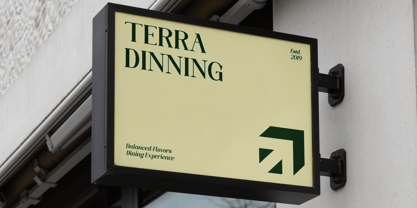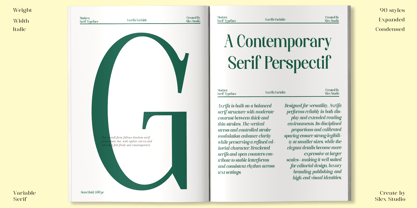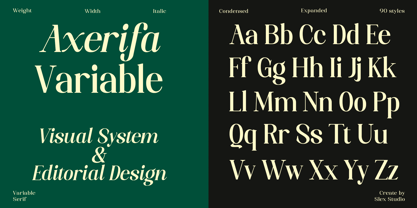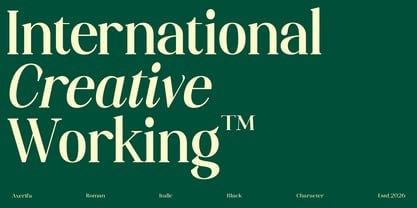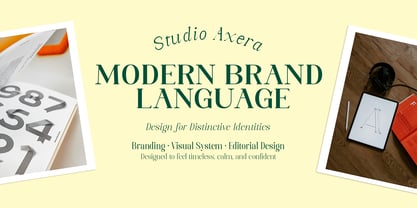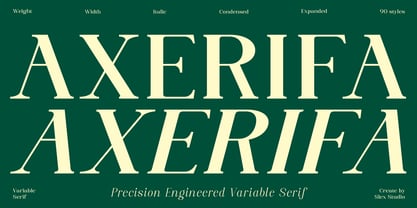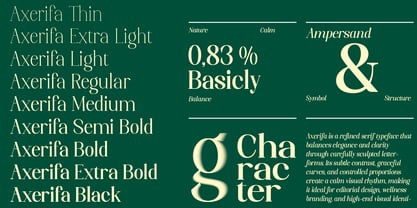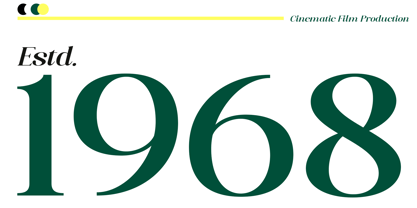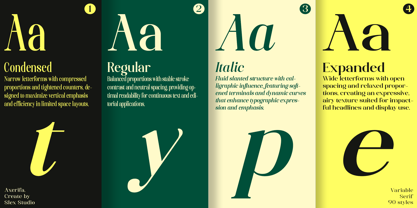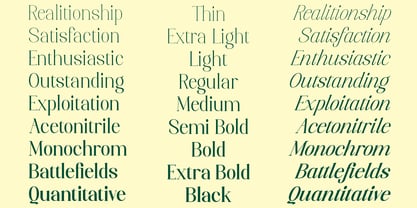
Axerifa
by Slex Studio
The Axerifa Font Family was designed by Muhammad Rayyan and published by Slex Studio. Axerifa contains 180 styles and family package options. More about this family
Axerifa is a precision-engineered variable serif designed for modern editorial and branding needs. Built on a refined classical foundation, Axerifa balances sharp structure with smooth curves, delivering strong character without sacrificing readability. This family offers extensive weight and width axes, from condensed to expanded, paired with a true italic that maintains optical harmony across all styles. Every detail—from stroke contrast to serif articulation—is carefully calibrated to perform consistently across large headlines, refined layouts, and expressive typography systems. With up to 90 styles, Axerifa gives designers full control over typographic rhythm, density, and tone. It excels in editorial design, luxury branding, publishing, fashion, and sophisticated visual identities where precision and elegance matter. Axerifa is not just a serif— it’s a flexible typographic system engineered for clarity, authority, and timeless appeal.